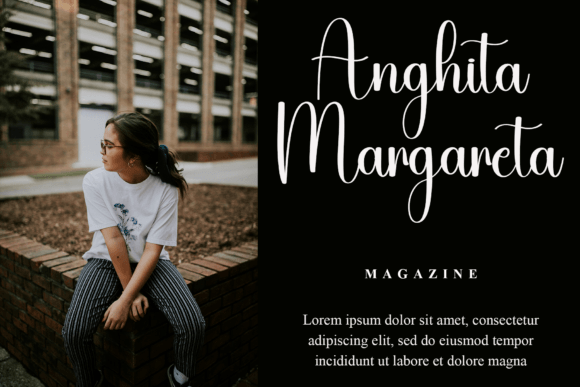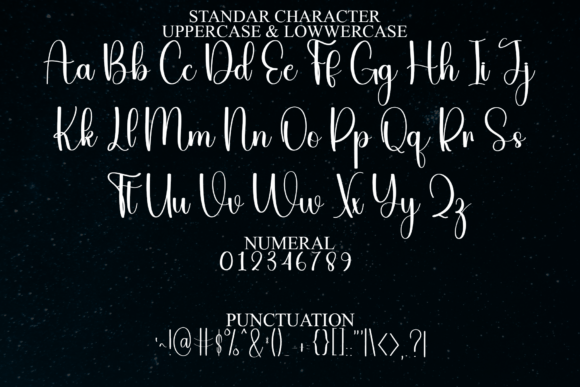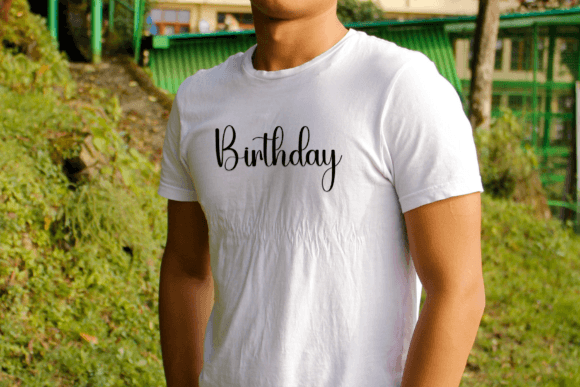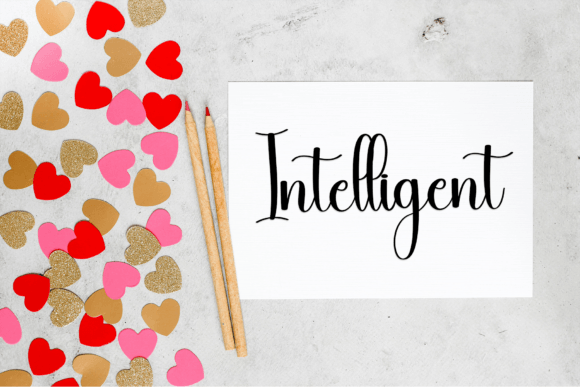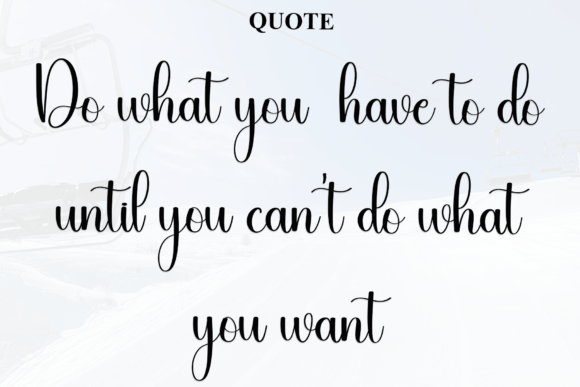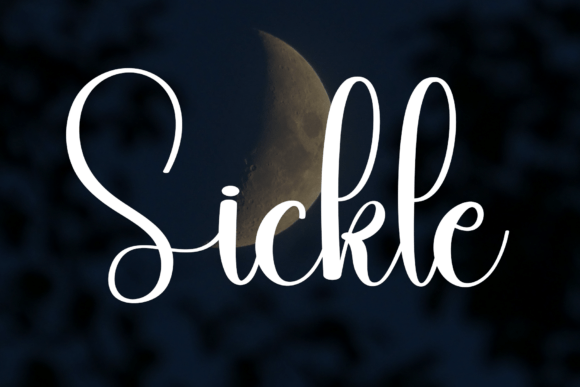
Introduction to Original Moonlight Font
Have you ever stared at a blank canvas, feeling the urge to create something beautiful and unique? The spark of creativity can strike at any moment, and when it does, it’s essential to have the right tools to bring your vision to life. For designers, having access to high-quality design resources can make all the difference in creating stunning visual effects.
That’s where the Original Moonlight Font comes in – a free, versatile font that’s perfect for creative projects requiring a touch of elegance and sophistication. With its soft, distinctive strokes, this natural font style is ideal for a wide range of applications, from design projects to crafts and more.
Key Features of Original Moonlight Font
• High-quality design resource ideal for creative projects requiring a unique touch.
• Character count: 500+ glyphs, including letters, numbers, and special characters.
• Resolution: Optimized for high-resolution displays, ensuring crisp and clear text at any size.
• Unique characteristics: Elegant, cursive script with subtle flair and sophistication, perfect for adding a touch of luxury to any design.
Honest Review: Original Moonlight Font
I recently stumbled upon the Original Moonlight Font while working on a creative project and I must say, I was quite impressed. This font is a great design resource for anyone looking to add a touch of elegance to their work.
• ✨ High quality design that’s perfect for creative projects
• ✨ Transparent background makes it easy to work with
• ⚠️ Limited font sizes available, which can make it difficult to use for larger or smaller text
• ⚠️ Not all operating systems support the font, which can cause compatibility issues
Overall, I’m quite impressed with the Original Moonlight Font. While it may have a few limitations, the quality and design of the font make it a great addition to any designer’s toolkit. I’d definitely recommend it for creative projects that require a touch of sophistication.
How to Use Original Moonlight Font
The Original Moonlight Font is a high-quality, free download design resource ideal for creative projects. With its unique and elegant design, it can elevate any project to the next level. One of the standout features of this font is its transparent background, making it easy to incorporate into your design.
Tips for Getting the Most Out of the Original Moonlight Font
The Original Moonlight Font is ideal for a variety of creative projects, including wedding invitations, business cards, and social media graphics. Its elegant design makes it perfect for formal events and professional presentations.